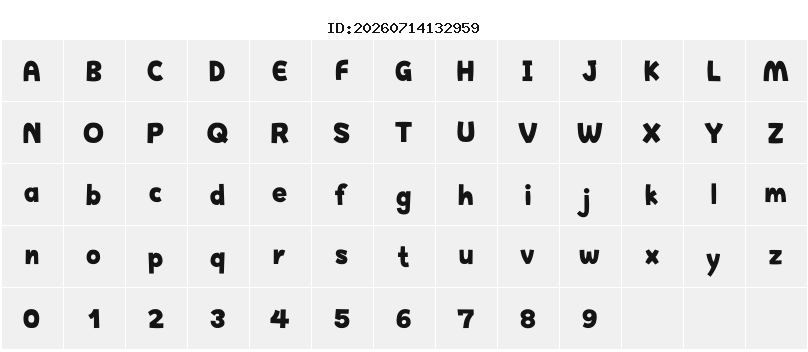
• Font Name: Happy Hell
• Full Font Name: Happy Hell
About Happy Hell.ttf
Happy Hell.ttf is a modern, elegant sans-serif font designed for ultimate readability and visual harmony. Perfect for branding, headlines, web design, and print materials.